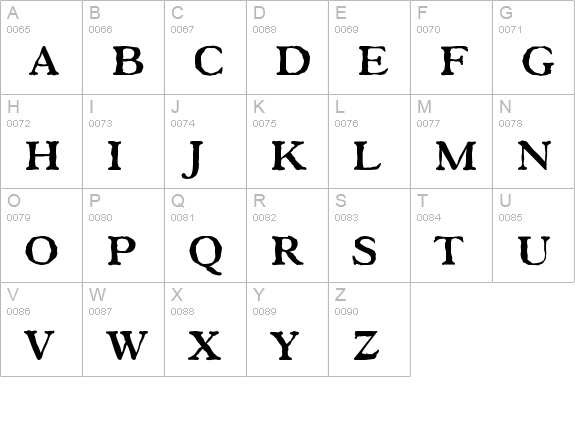
GascogneAntique-Bold Font Details
GascogneAntique-Bold is a strong, high-contrast variant in the GascogneAntique typeface family \xE2\x80\x94 well suited to headlines, attention-grabbing titles, and strong calls-to-action.
GascogneAntique-Bold font exudes a timeless elegance with its bold and sophisticated design. This font is perfect for making a statement in headlines, logos, and branding materials. Its strong, yet graceful strokes command attention and convey a sense of classic beauty. What makes GascogneAntique-Bold even more appealing is that it is available for free download at FontsMarket.com. This means you can easily enhance your projects with this stunning font without any cost. Embrace the beauty of GascogneAntique-Bold and elevate your designs with its captivating presence.